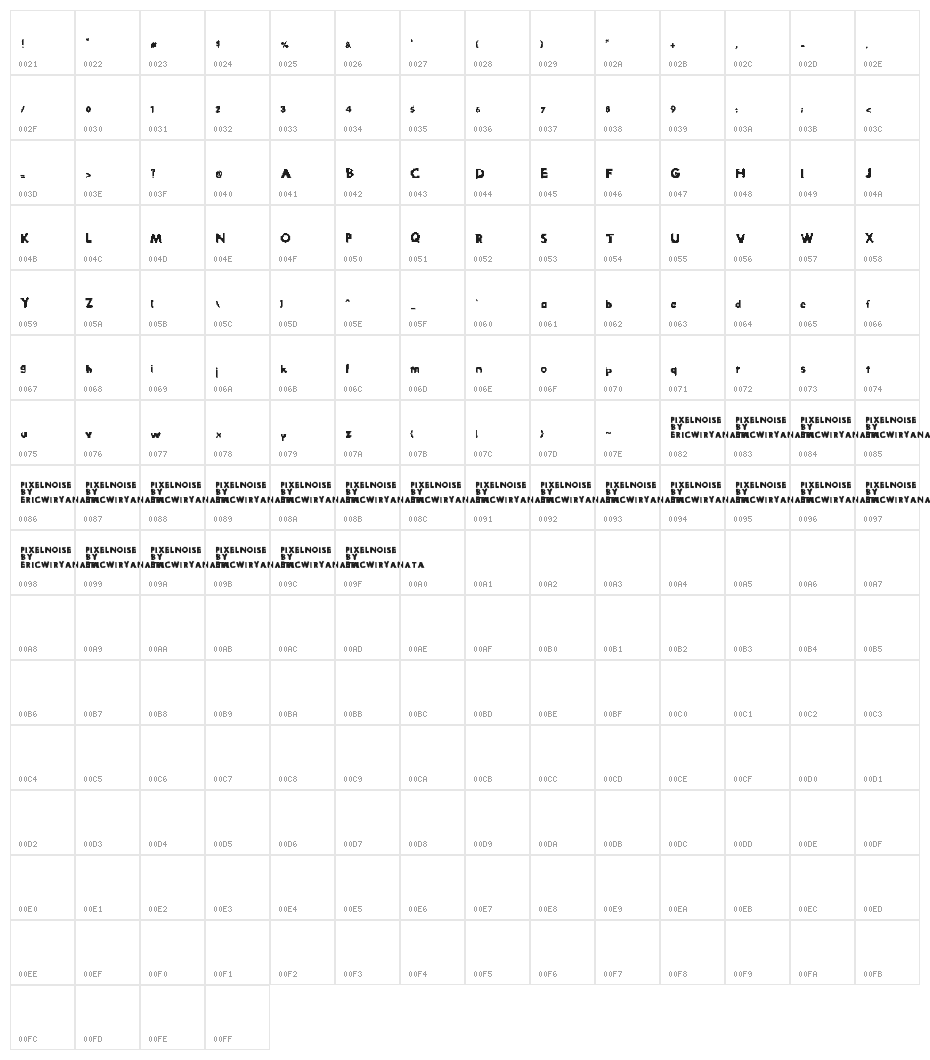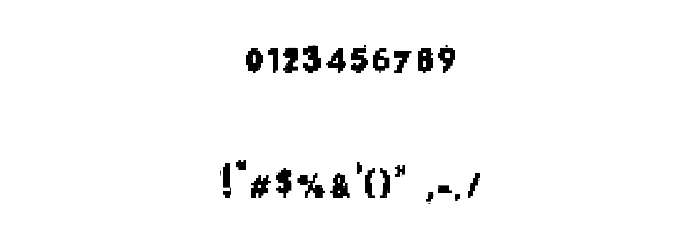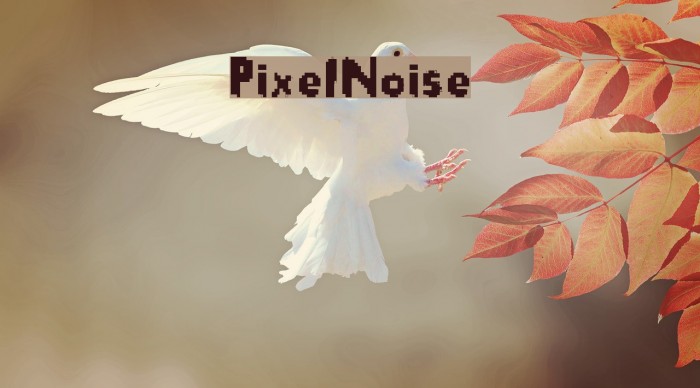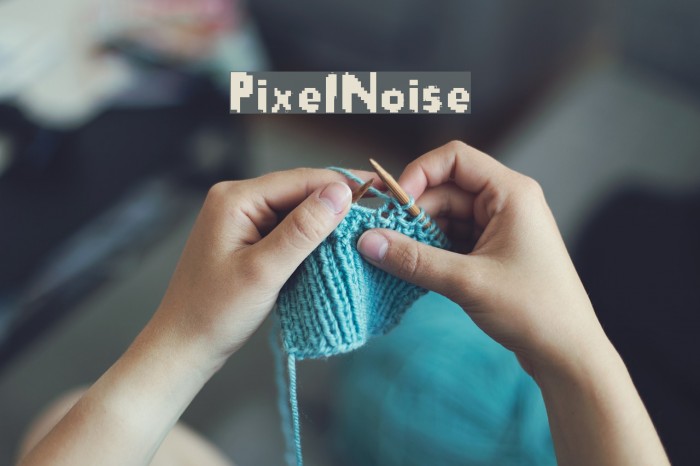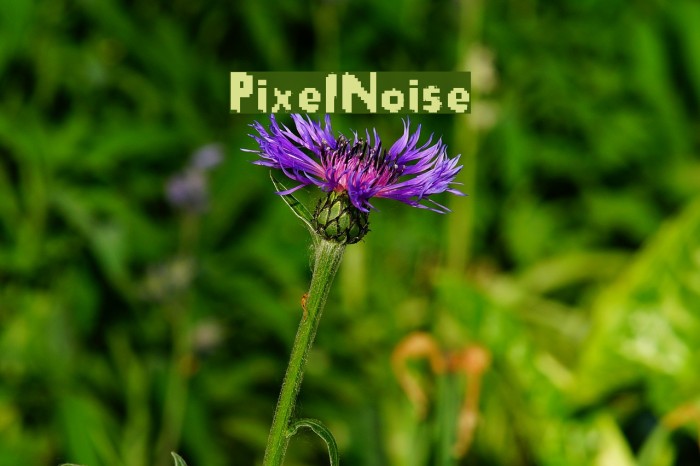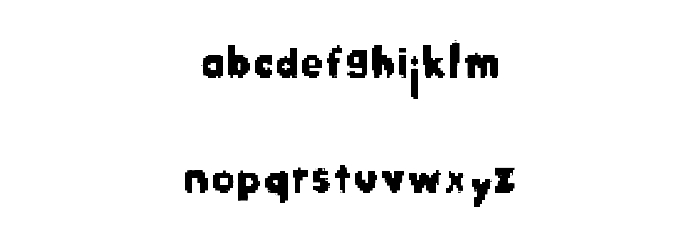
PixelNoise Font
PixelNoise Description
This font features a bold and playful design with a pixelated, digital aesthetic. The characters are constructed with a blocky, jagged appearance, reminiscent of retro video game graphics. The uppercase and lowercase letters maintain a consistent style, with each character exhibiting a unique, irregular outline that adds to its charm. The numbers and special characters follow the same design principles, ensuring a cohesive look across all glyphs. This font's distinct style makes it stand out, offering a nostalgic yet modern feel.
| Overall Style | Retro, Playful |
| Use Case | Logos, Posters, Digital Art |
| Proposed Projects | Ideal for video game graphics, retro-themed posters, digital art projects, and playful branding. |